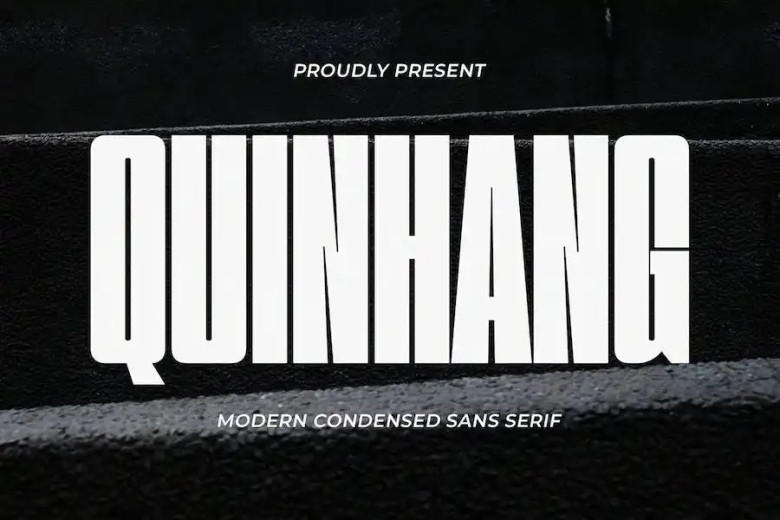
Quinhang Font
Quinhang Font is an elegant modern sans-serif font suitable for logos, brand invitations, magazines and product packaging.
Quinhang Sans Serif Font